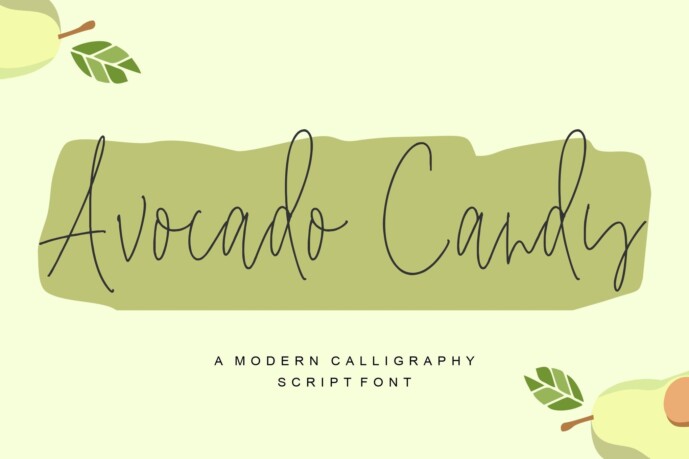
Avocado Candy Font
Designer: BalpirickStudio
Avocado Candy is a delicate, stylish and cursive handwritten font. It has beautiful and well balanced characters and as a result, it matches a wide pool of designs. This font is PUA encoded which means you can access all of the glyphs and swashes with ease!